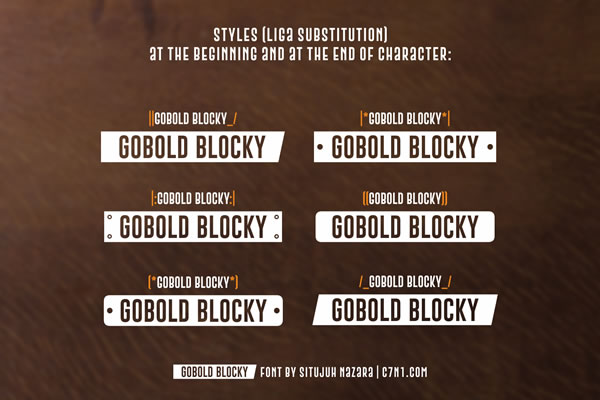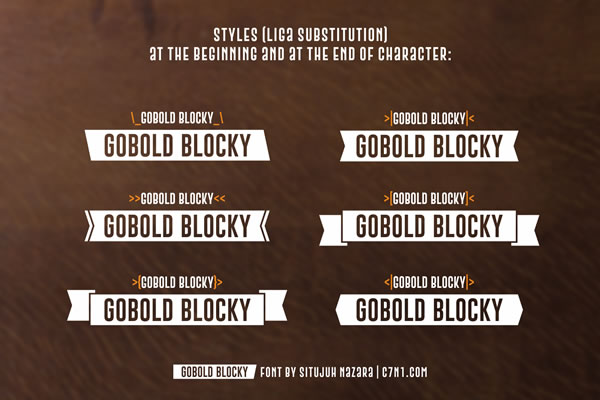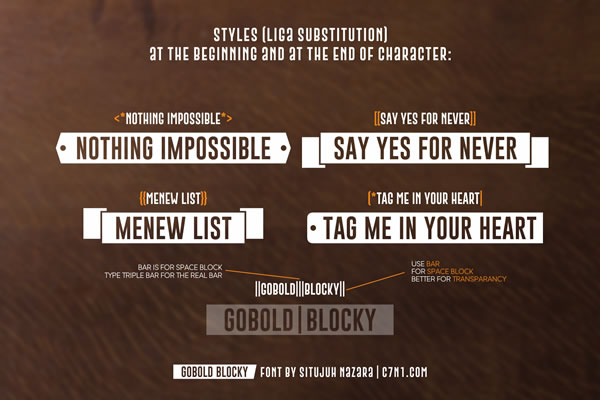
Gobold Blocky Font: Unleash Your Creativity with Playful Text Blocks
Are you a designer, crafter, or DIY enthusiast looking for a unique and playful way to add text to your projects? Look no further than the Gobold Blocky font! This versatile font allows you to create blocks of text that are sure to add a touch of personality to any design. In this article, we’ll take a closer look at the Gobold Blocky font, its features, and how you can use it to take your designs to the next level.
What is Gobold Blocky Font?
Gobold Blocky is a modern, sans-serif font that is specifically designed to create blocks of text. Its unique feature is the ability to create rectangular blocks of text with rounded corners, giving your designs a fun and playful look. The font comes with a range of features that make it perfect for designers, crafters, and DIY enthusiasts.
Key Features of Gobold Blocky Font
- Playful Text Blocks: The Gobold Blocky font allows you to create blocks of text with rounded corners, giving your designs a unique and playful look.
- High-Quality Design: The font is designed with high-quality graphics, ensuring that your text blocks look sharp and clear.
- Versatile: The Gobold Blocky font can be used for a wide range of projects, from paper crafting to digital designs.
The Gobold Blocky font is perfect for a wide range of projects, from paper crafting to digital designs. Here are a few ideas to get you started:
- Paper Crafting: Use the Gobold Blocky font to create custom journal cards, gift tags, and scrapbooking pages.
- Digital Designs: Add a playful touch to your digital designs, such as social media graphics, blog posts, and presentations.
- DIY Projects: Use the font to create custom signs, labels, and decorations for your home or office.
Here are a few tips and tricks to help you get the most out of the Gobold Blocky font:
- Experiment with Different Colors: Try out different colors and color combinations to add depth and interest to your text blocks.
- Play with Font Sizes: Experiment with different font sizes to create visual interest and hierarchy in your designs.
- Add Texture and Patterns: Add texture and patterns to your text blocks to give them a more organic and handmade look.
The Gobold Blocky font is a versatile and playful font that is perfect for designers, crafters, and DIY enthusiasts. With its unique features and ease of use, it’s easy to create custom text blocks that add a touch of personality to any design. Whether you’re working on a paper crafting project, digital design, or DIY project, the Gobold Blocky font is sure to inspire your creativity.
View the preview images below to see the different types of blocks that are possible with the Gobold Blocky font: